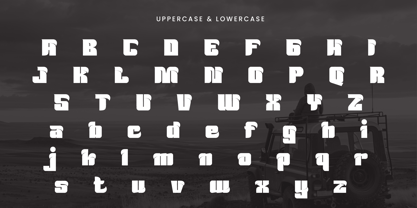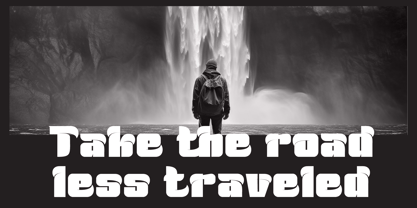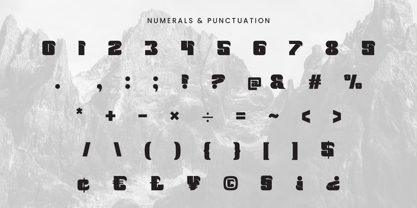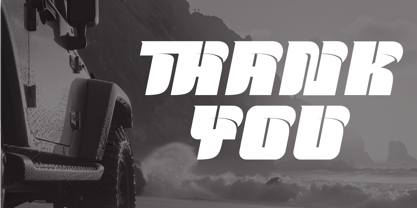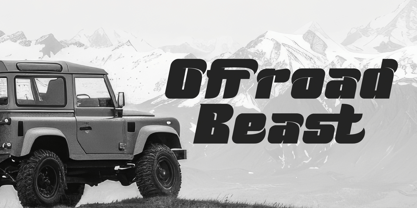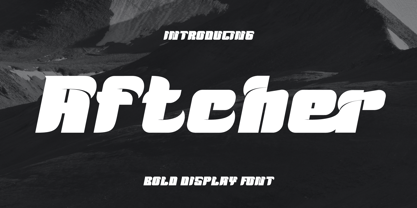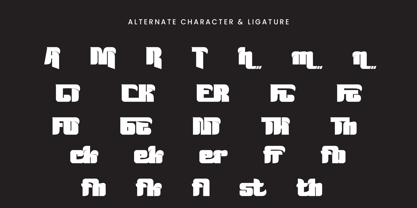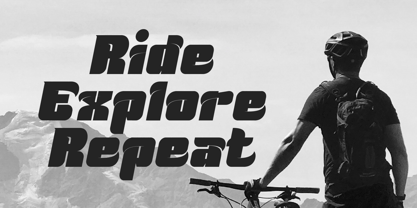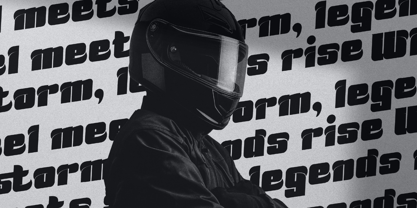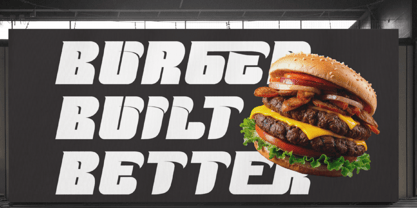
Aftcher
The Aftcher Font Family was designed by Randi Irvan and published by Rvandtype. Aftcher contains 2 styles and family package options. More about this family
Afcher is a bold display typeface with a futuristic and aggressive look, crafted to dominate the visual space in adventurous, automotive, or extreme sports designs. Its sharp cuts and strong curves exude masculinity, strength, and speed. Perfect for poster headlines, off-road vehicle branding, sportswear labels, stickers, or any social media content that calls for a daring and modern style.
Features:
• Uppercase & Lowercase Letters
• Geometric and bold shapes
• Ideal for adventure, automotive, and masculine themes